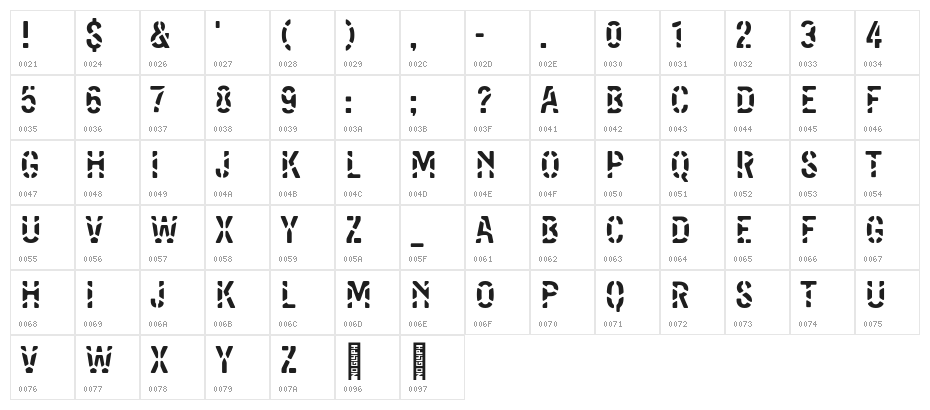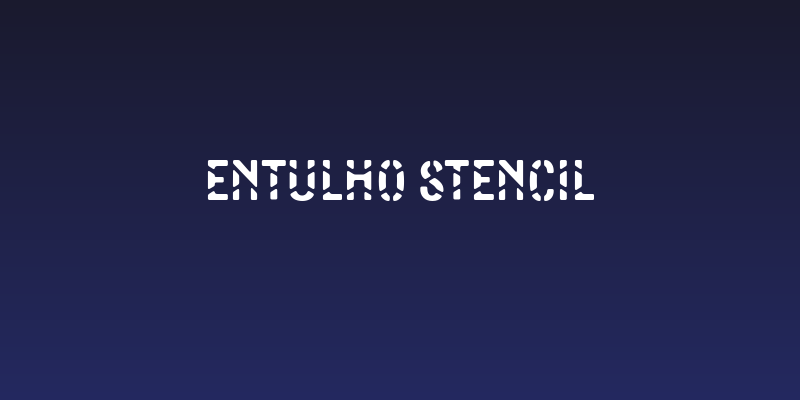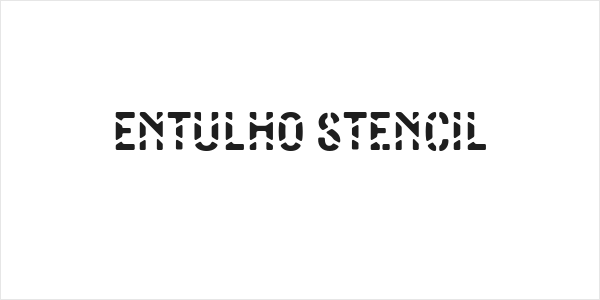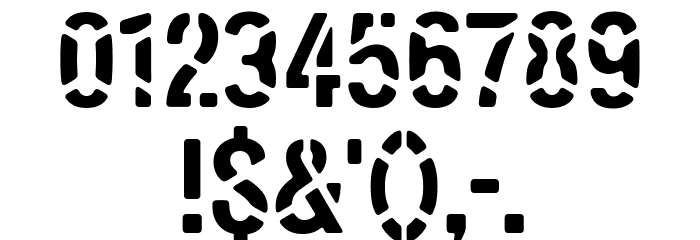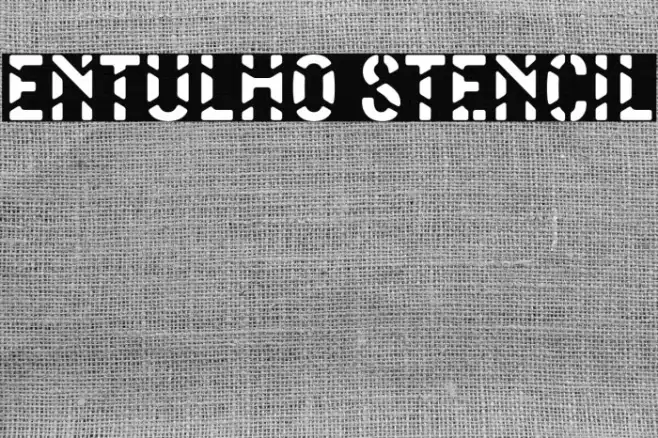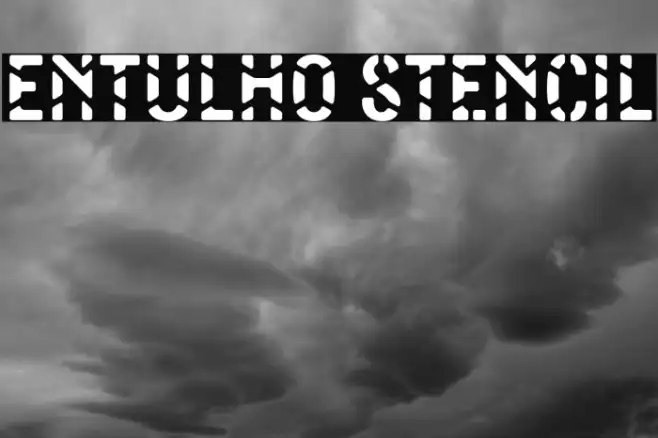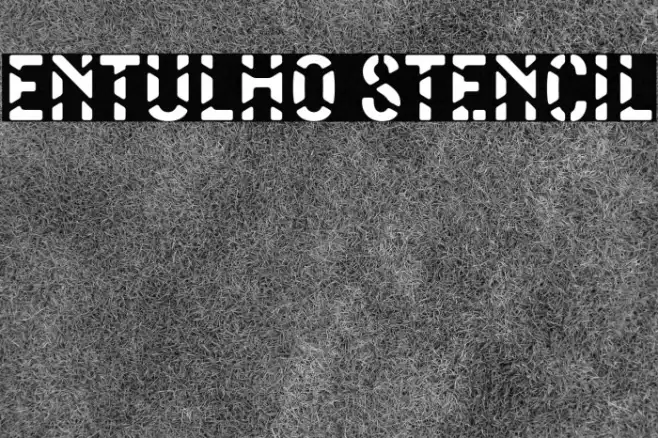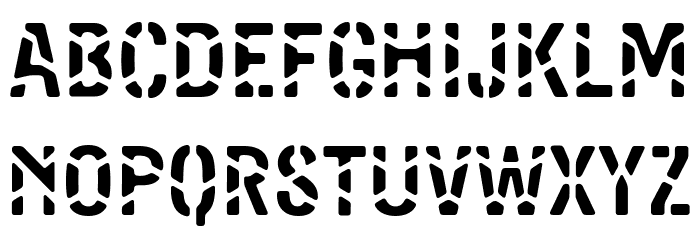
Entulho Stencil Font
Entulho Stencil Description
This font features a bold, stencil-like design with distinct gaps in each character, giving it an industrial and rugged appearance. The uppercase and lowercase letters maintain a consistent style, with sharp angles and clean lines that enhance its legibility. The numbers and special characters follow the same aesthetic, ensuring uniformity across all elements. Its boldness and unique cut-out style make it stand out, suitable for projects that require a strong visual impact. The font's design is reminiscent of military or construction themes, often used in signage or branding that demands attention.
| Overall Style | Industrial, Rugged |
| Use Case | Headlines, Logos, Signage |
| Proposed Projects | Ideal for military-themed designs, construction signage, branding, posters, and any project requiring a strong, impactful visual presence. |